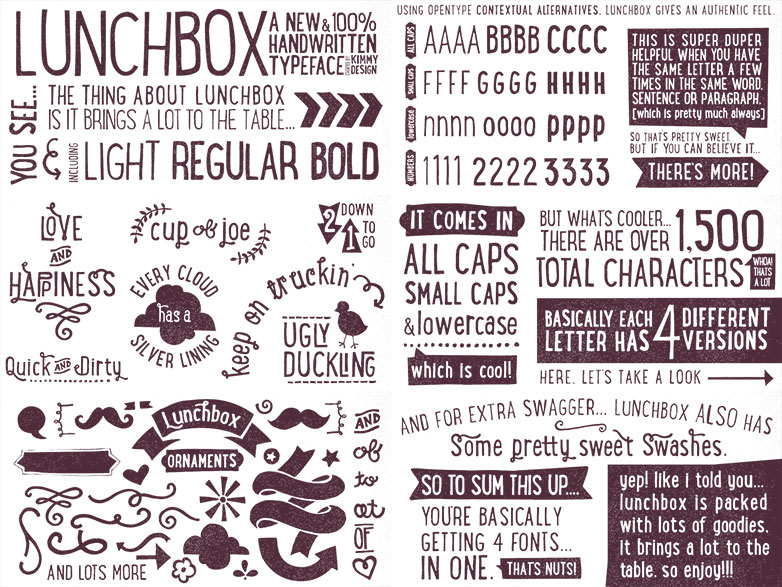
Lunchbox is a beautifully designed typeface that brings a sense of hand-crafted goodness to your projects. In a world where companies are perceived as distant, it’s great to see a typeface that can invest a personal touch in your brand.
Ideal for any project that needs to emphasize wholesomeness, friendliness and a little fun; Lunchbox is best used for organic food suppliers, wholesome diners and small businesses involved in their community.
One of the big flaws with any hand-written font is that once you use a character twice, the identical designs are obvious immediately; that ruins the illusion of a hand-written message and with it, the idea of personal service, which was probably the reason you chose the font in the first place. Lunchbox solves this problem by giving you 4 variations on each letter. That means that whatever your content, you can be sure it will maintain the cool, hand-crafted feel that you’re hoping for.
Lunchbox features uppercase, small caps and lowercase. There are 1500 different characters across light regular and bold.
To add even more personality the caps, small caps and lowercase characters feature stylistic alternatives; you can add on some chunky swooshes for a little extra flair; you’ll even find ornaments.
As a final tool in your suitcase, Lunchbox includes a custom set of discretionary ligatures. That means you can combine the characters into a more stylised version of themselves. Ligatures are available for the most common letter combinations and they’re a great way achieving that final professional finish. In fact, this set of fonts has enough to keep the most demanding typographer happy for days.